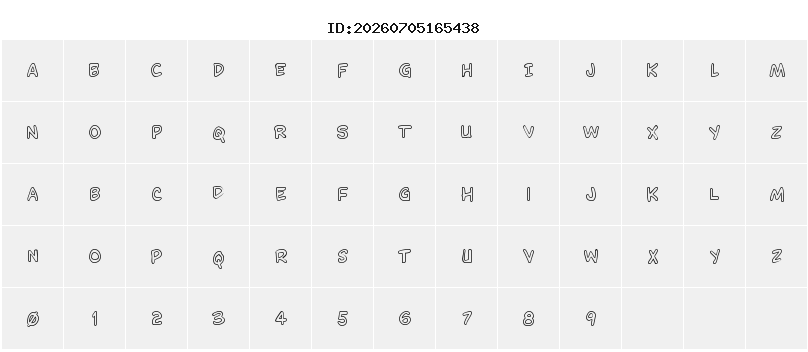
• Font Name: Domino Mask Outline
• Font Style: Outline
About Domino Mask Outline.ttf
Domino Mask Outline.ttf is a modern, elegant sans-serif font designed for ultimate readability and visual harmony. Perfect for branding, headlines, web design, and print materials.